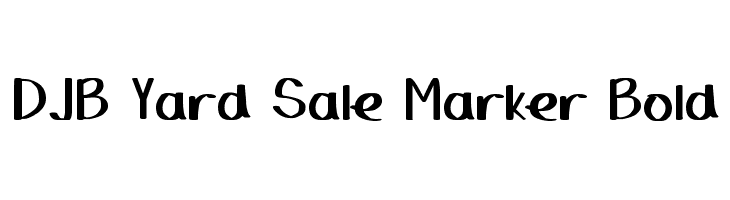
A bold, rounded font with a playful geometric style.
A playful, rounded font with bold, geometric strokes and smooth curves.
Casual handwritten font with smooth curves.
A bold, rounded font with a playful and modern aesthetic.
A bold, italic, and playful font with rounded, flowing characters.
A graceful and elegant script font with fluid, sweeping curves.
A bold, playful italic font with rounded, thick strokes.
A playful, hollow outline font with rounded edges and a modern aesthetic.
A bold, playful font with rounded, bubble-like characters.
A playful, rounded font with bold, smooth curves and a whimsical style.
A playful handwritten font with a casual and informal style.
A modern, geometric font with tall, narrow characters and uniform stroke width.
A bold, geometric font with a distinctive shadow effect, perfect for modern and creative designs.
A bold, rounded font with a modern and friendly style.
A modern, playful italic font with smooth, rounded edges.
A bold, cursive script font with elegant, flowing strokes and a handwritten feel.
A playful, bold font with a three-dimensional outline effect.
An elegant, flowing script font with high contrast and graceful curves.
A bold, expressive handwritten font with fluid, organic strokes.
Playful handwritten script font.
A bold, cursive script font with a handwritten signature style.
A bold, italic handwritten font with a signature-like elegance.
A sophisticated, elegant handwritten font with flowing cursive strokes.
A sophisticated, cursive handwritten font with a personal signature style.
( Fonts by ToniStudio - Fatoni Nurman - Personal-use only. For commercial use please contact owner. )
An elegant script font with fluid, cursive strokes and ornate details.
( Fonts by Indriyanti - Personal-use only. For commercial use please contact owner. )
A bold, elegant script font with flowing, connected characters.
A bold, playful font with thick, rounded strokes and high contrast.
A playful, handwritten font with a casual and friendly appearance.
A playful, handwritten-style font with bold, rounded characters.
A playful, handwritten font with bold, dynamic characters.